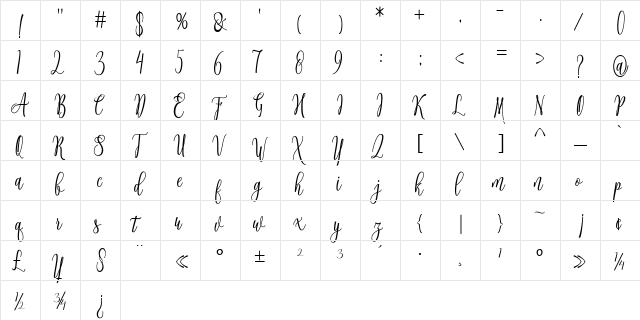
Connekia Regular
Design Context for Connekia Typeface
Connekia is a composed and adaptable typeface that performs quietly and consistently across a wide range of design contexts.